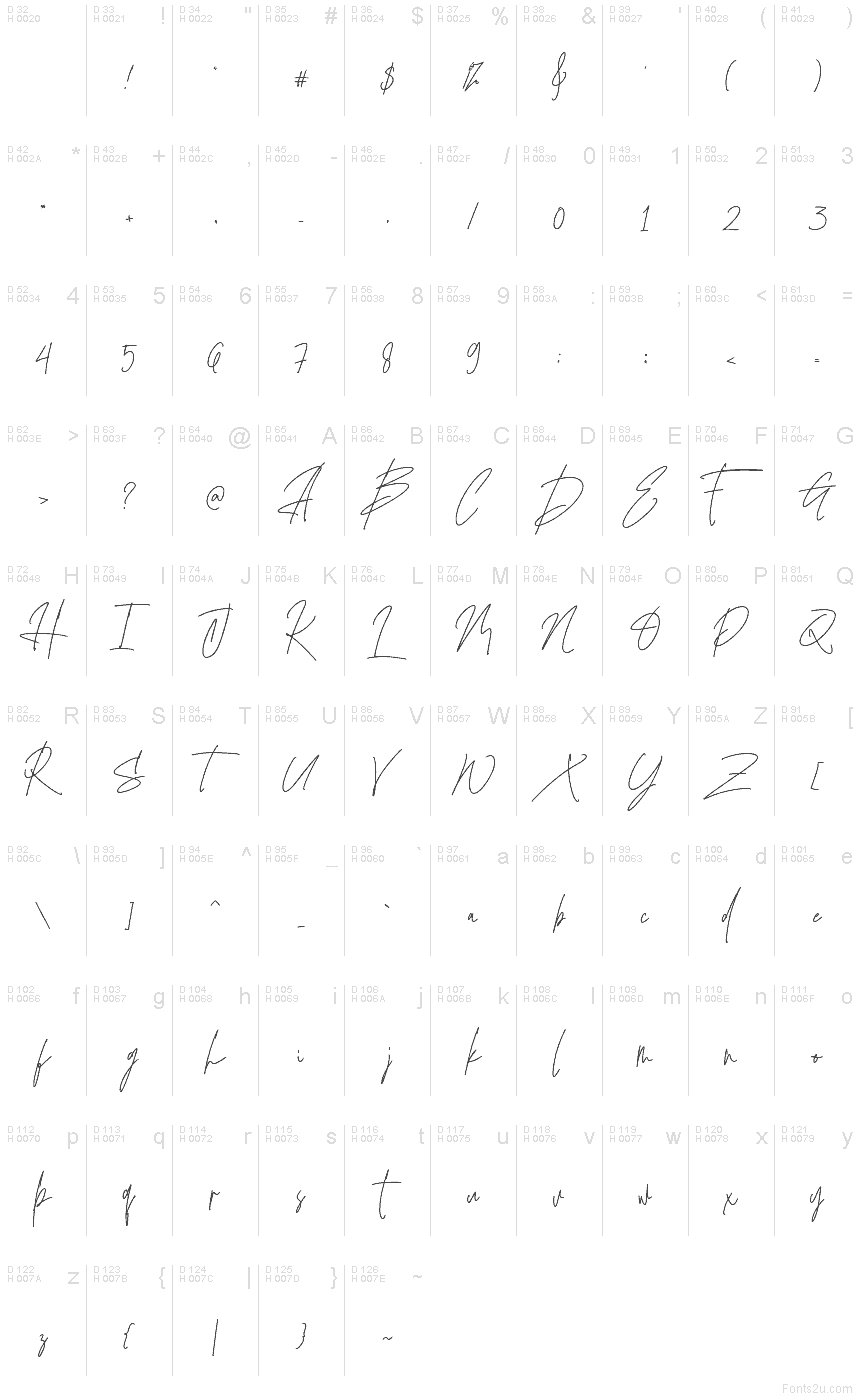
SindupenSignature-Regular
Sindupen Signature font, designed by Tebaltipis Studio, is a light handwritten signature font to use in all your branding and advertisement projects. Both casual and elegant at once, the font has a modern aesthetic with an organic flow. It was created specifically for handwriting lovers who want their texts to shine as they are meant to.